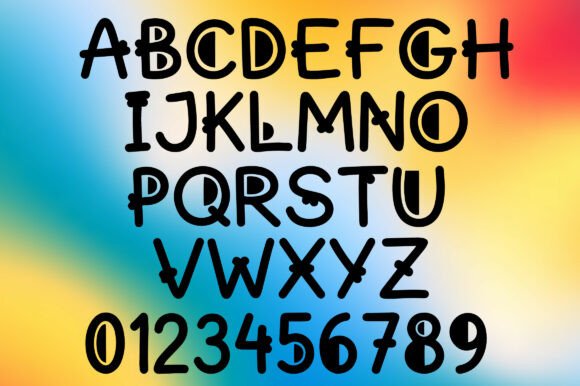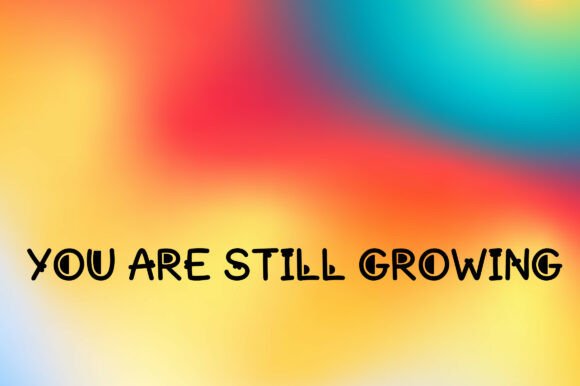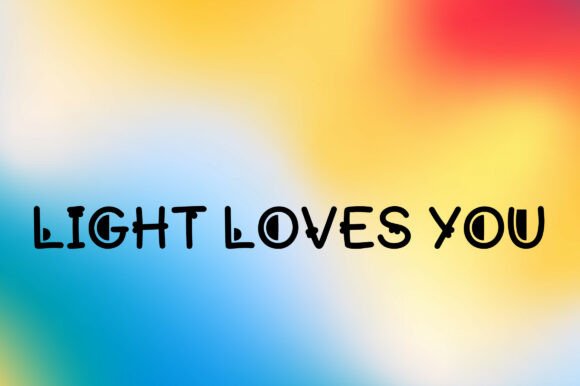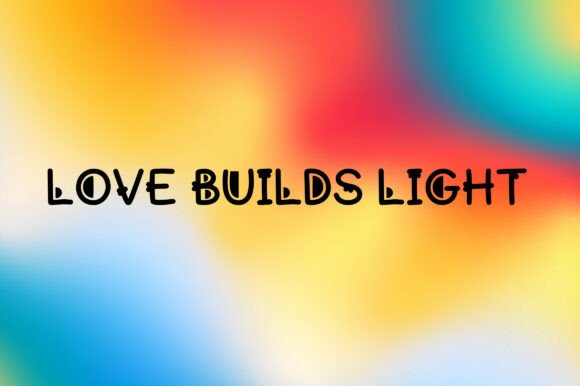
Introducing CHLOE: A Playful Decorative Display Font
Are you tired of using the same old fonts in your designs? Look no further than CHLOE, a playful decorative display font that adds a touch of whimsy and personality to any project. With its bold artistic charm and hand-drawn style, CHLOE is perfect for designers and crafters looking to add a little excitement to their work.
What Makes CHLOE Special?
CHLOE’s uppercase letterforms feature rounded strokes, quirky cutout details, and a fun uneven character that makes every word feel lively, creative, and full of personality. The font’s playful design makes it perfect for a variety of creative projects, from branding and posters to packaging and invitations.
Key Features of CHLOE
- Hand-drawn style: CHLOE’s unique, hand-drawn style gives it a personal and artistic touch that’s hard to find in other fonts.
- Bold artistic charm: The font’s bold, artistic charm makes it perfect for designs that need to stand out.
- Rounded strokes: CHLOE’s rounded strokes add a touch of softness and whimsy to the font.
- Quirky cutout details: The font’s quirky cutout details add an extra layer of visual interest.
- Fun uneven character: CHLOE’s fun uneven character makes every word feel lively and creative.
- Uppercase letters A-Z and numbers 0-9: The font includes uppercase letters A-Z and numbers 0-9, making it perfect for a variety of design projects.
CHLOE is perfect for a variety of creative projects, including:
- Branding: Add a touch of personality to your brand with CHLOE’s playful design.
- Posters: Create eye-catching posters with CHLOE’s bold artistic charm.
- Packaging: Add a touch of whimsy to your packaging with CHLOE’s quirky cutout details.
- Invitations: Make your invitations feel special with CHLOE’s hand-drawn style.
- Kids’ projects: CHLOE’s playful design makes it perfect for kids’ projects, such as coloring books and activity sheets.
- Social media graphics: Add a touch of personality to your social media graphics with CHLOE’s fun uneven character.
Why Choose CHLOE?
There are many reasons why designers and crafters should choose CHLOE for their next project. Here are just a few:
- Unique design: CHLOE’s unique design makes it stand out from other fonts.
- Easy to read: Despite its playful design, CHLOE is easy to read, making it perfect for a variety of design projects.
- Versatile: CHLOE can be used for a variety of design projects, from branding to social media graphics.
- Fun and creative: CHLOE’s playful design makes it perfect for designers and crafters who want to add a little fun and creativity to their work.
CHLOE is a playful decorative display font that’s perfect for designers and crafters looking to add a little excitement to their work. With its bold artistic charm, hand-drawn style, and quirky cutout details, CHLOE is sure to make any project feel lively, creative, and full of personality. Whether you’re working on a branding project, creating posters, or designing social media graphics, CHLOE is the perfect choice.